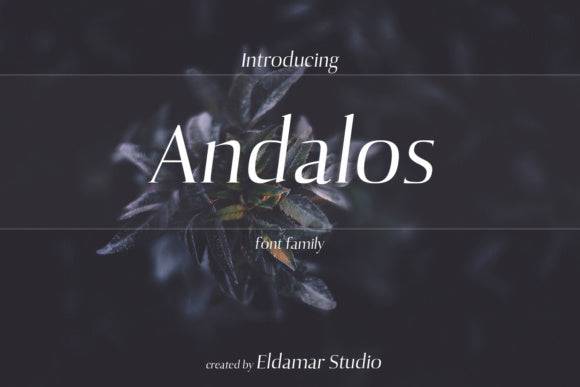
Andolas Font for Cricut, Silhouette and Printable Designs
Andolas is a precision-friendly font crafted specifically for use in digital cutting machines like Cricut and Silhouette. Its well-balanced forms and smooth lines make it perfect for crafting high-quality vinyl designs, custom printables, and handmade creations. In addition to its versatility, Andolas pairs beautifully with the ankora font for printable designs, creating stunning combinations that enhance any project. Its readability and aesthetic appeal make it an ideal choice for both novice and experienced crafters looking to elevate their creations. Whether you're designing invitations, home decor, or personalized gifts, Andolas brings a touch of elegance to every piece. Its compatibility with various design software further enhances its practicality, allowing for seamless integration into any crafting workflow. Complement Andolas with the ashod font for silhouette designs to create dynamic layers and textures that make your projects stand out. With Andolas, you're not just creating designs; you're crafting memorable experiences that reflect your personal style and creativity.
This font entity blends clean styling with ease of use, helping creators deliver polished results whether designing stickers, home decor, or apparel. Andolas ensures sharp, legible cuts and beautiful print output for both digital and physical design workflows.
- Perfectly balanced for cutting and printing
- Clean design enhances legibility
Q: What type of font is Andolas?
A: Andolas is a modern and clean crafting font ideal for Cricut, Silhouette, and printable designs.
| Font Style | Modern sans-serif craft font | Rounded stencil cut font | Layered vinyl-friendly font |